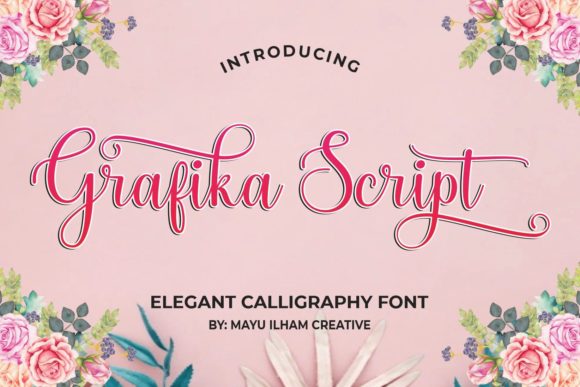
Grafika Script: Where Elegance Meets Effortless Design
There’s a particular kind of magic in a typeface that feels both timeless and fresh. Grafika Script is one of those rare finds. It carries the fluid grace of classic calligraphy but with a modern, confident edge that prevents it from looking dated or overly formal. Imagine the swirl of a skilled pen on thick, textured paper—that’s the sensation this premium font evokes. It’s not just a script font; it’s a design asset with personality. The letters connect with a natural, flowing rhythm, yet each character maintains its own distinct clarity. This balance is what makes Grafika Script so versatile. It can whisper sophistication for a high-end brand or shout creativity for a youthful startup, all depending on the context you place it in.
More Than Just a Pretty Face
While its aesthetic charm is immediately obvious, the true value of Grafika Script lies in its practical application. As a creative font, it’s built for impact in specific, high-stakes scenarios. Think about where a touch of elegance can transform the ordinary into the memorable. This is where Grafika Script excels. It’s a natural fit for logo design, where a single wordmark needs to convey an entire brand’s ethos. The fluid connections and swashes add a level of bespoke craftsmanship that a standard sans serif font simply cannot replicate. For entrepreneurs and small business owners crafting their brand identity, this typeface offers a shortcut to a polished, professional look.
Beyond logos, its applications in marketing and publishing are extensive. Consider the headline of a wedding invitation, the title of a gourmet cookbook, or the branding for a boutique hotel. Grafika Script brings a tactile, luxurious quality to print design. In the digital realm, it’s equally powerful. When used sparingly and strategically in web design—perhaps for a hero section quote or a special announcement—it creates a focal point that draws the eye and elevates the user experience. Social media graphics are another prime territory. A Instagram quote post or a Pinterest pin featuring this handwritten font can stop the scroll, offering a visual break from the endless stream of standard typography. The key is using it as a display font for headlines, subheadings, or call-outs, not for body text where readability is paramount.
Pairing and Practicality: Making Grafika Script Work for You
Choosing a font is only half the battle; knowing how to use it effectively is what separates good design from great design. One of the most common questions with any script or handwritten font is, “What do I pair it with?” The answer lies in contrast and balance. Grafika Script, with its ornate and flowing character, needs a grounded partner. This is where a clean, simple serif font or a geometric sans serif font comes in. The contrast allows the script to shine without overwhelming the viewer. For a classic, editorial feel, pair it with a timeless serif like Garamond or a modern one like Playfair Display. For a more contemporary, minimalist vibe, a clean sans serif like Montserrat or Lato provides the perfect counterweight. Always test your font pairing in the context of your actual content to ensure the hierarchy is clear and the overall look is cohesive.
Practical considerations are also crucial. Because Grafika Script is a premium font, it comes with professional-grade features. Its PUA encoding is a significant practical benefit, especially for those using design software that doesn’t fully support advanced OpenType features. This means all the beautiful alternate characters, swashes, and ligatures are easily accessible through your system’s character map, allowing you to customize words for a truly unique look. Before committing to any commercial font for a project, always review its full character set and licensing. Ensure the license covers your intended use, whether it’s for a client’s logo, a line of merchandise, or digital products. A quick test of the font at the size you plan to use it is also wise. While it’s stunning at larger display sizes, you’ll want to verify its legibility in the specific context of your design, whether on a mobile screen or a printed brochure.
Crafting Recognition and Emotional Connection
The fonts you choose are silent ambassadors for your brand or project. They communicate mood, quality, and intent before a single word is read. Grafika Script, with its inherent elegance and modern flair, actively shapes brand perception. It suggests attention to detail, creativity, and a touch of luxury. This can be a powerful tool for audience engagement. A well-chosen typeface helps build visual consistency across all touchpoints—from your website to your packaging design to your email newsletters—reinforcing brand recognition every time someone encounters your work.
For content creators, bloggers, and publishers, using a distinctive display font like Grafika Script in your editorial design can establish a signature look for your headers or pull quotes, making your content instantly recognizable in a crowded feed. For crafters and hobbyists, it can add a professional, handcrafted quality to personal projects, from custom stationery to event decorations. The font’s ability to bridge the gap between charming and elegant is its greatest strength. It doesn’t force you to choose between warmth and sophistication; it delivers both. By integrating Grafika Script thoughtfully into your design toolkit, you’re not just selecting a typeface—you’re choosing a strategic asset that can enhance readability through clear hierarchy, strengthen your brand’s visual identity, and create a more engaging and memorable experience for your audience. It’s a spark of luxury that’s surprisingly easy to ignite.